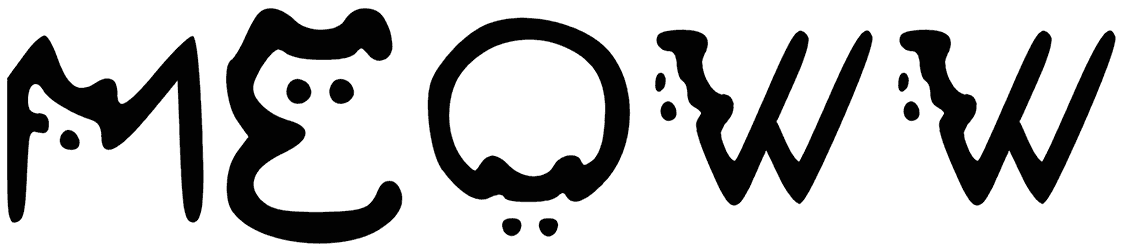
Meoww Font
Designed byAna Nana
Meoww is a lively font that, just like pets, can create a different atmosphere in your projects. Each character is similar to a small cat, and combining them can attract the attention of all animal lovers.
With this cat font in your collection, you can create attractive characters that appear successfully in animations, computer games, or clothing designs. So if you want to include a living creature in your designs, Meoww can be your first choice even without lowercase letters.